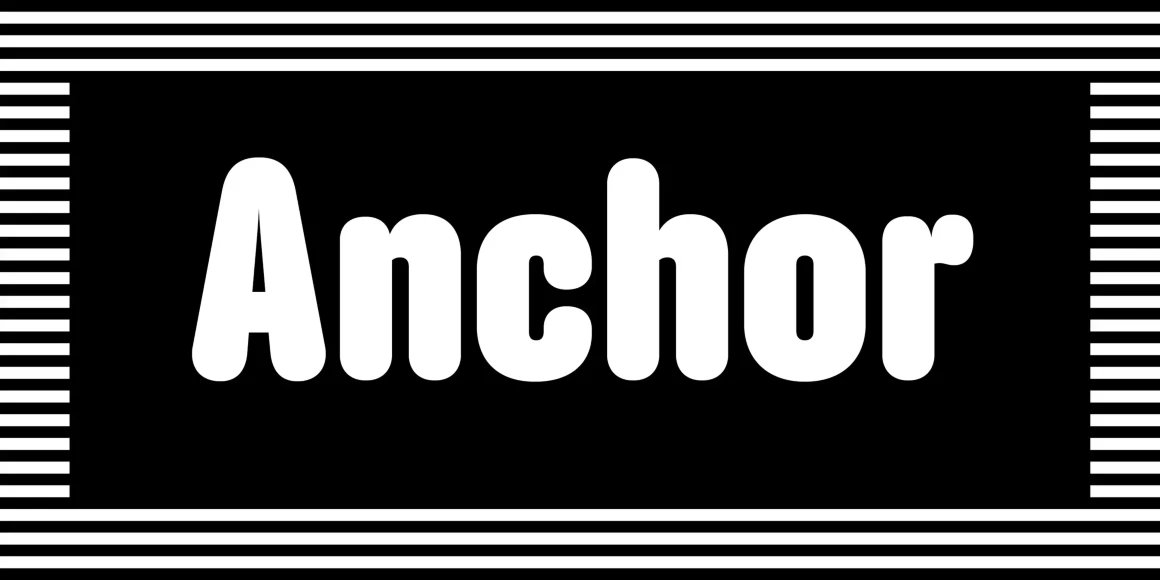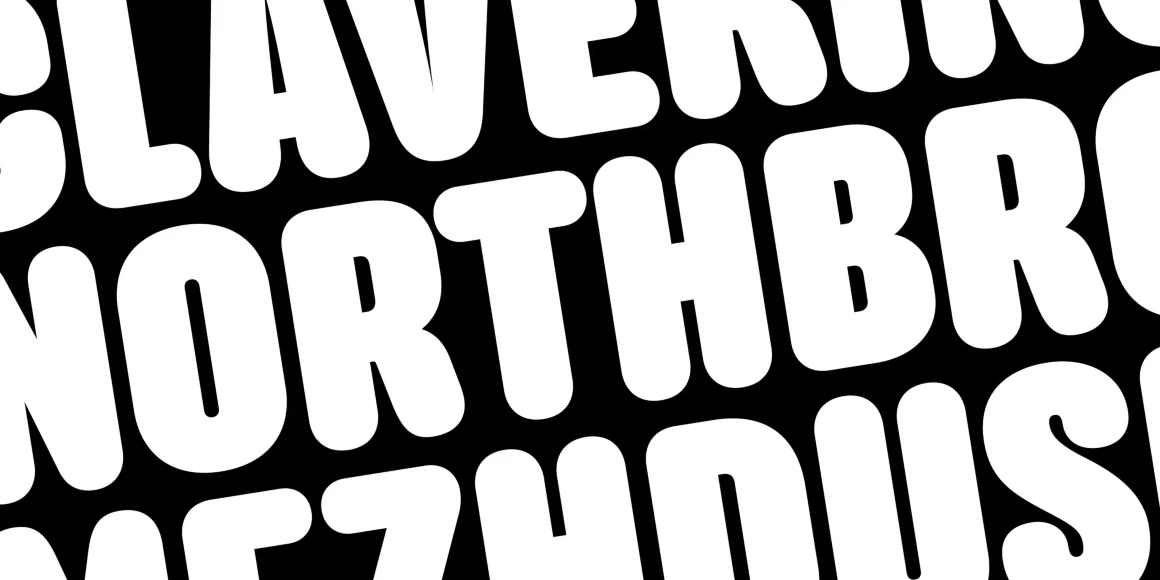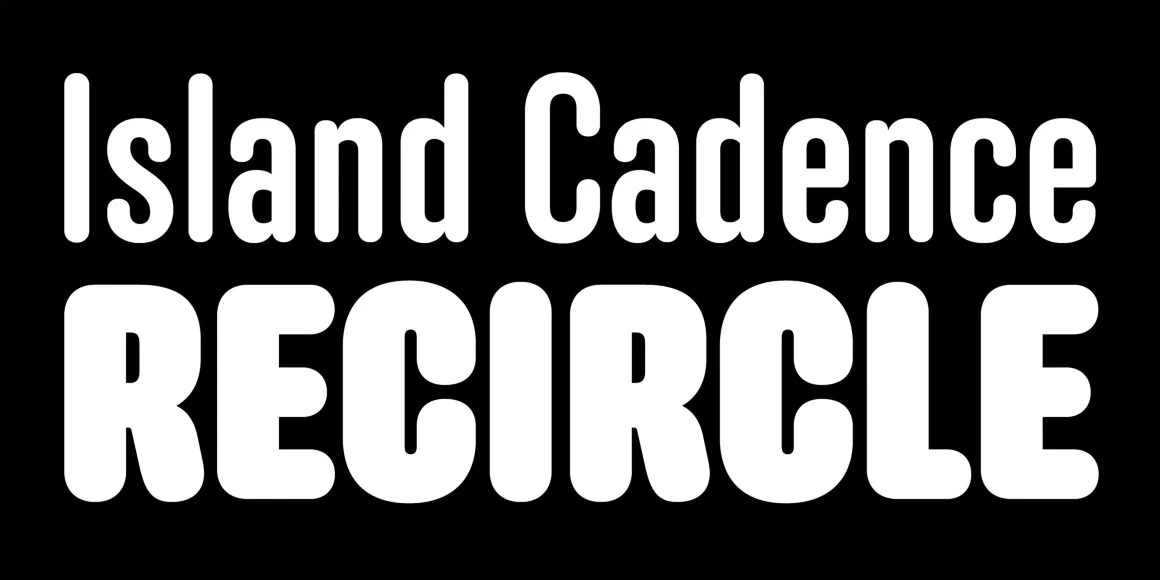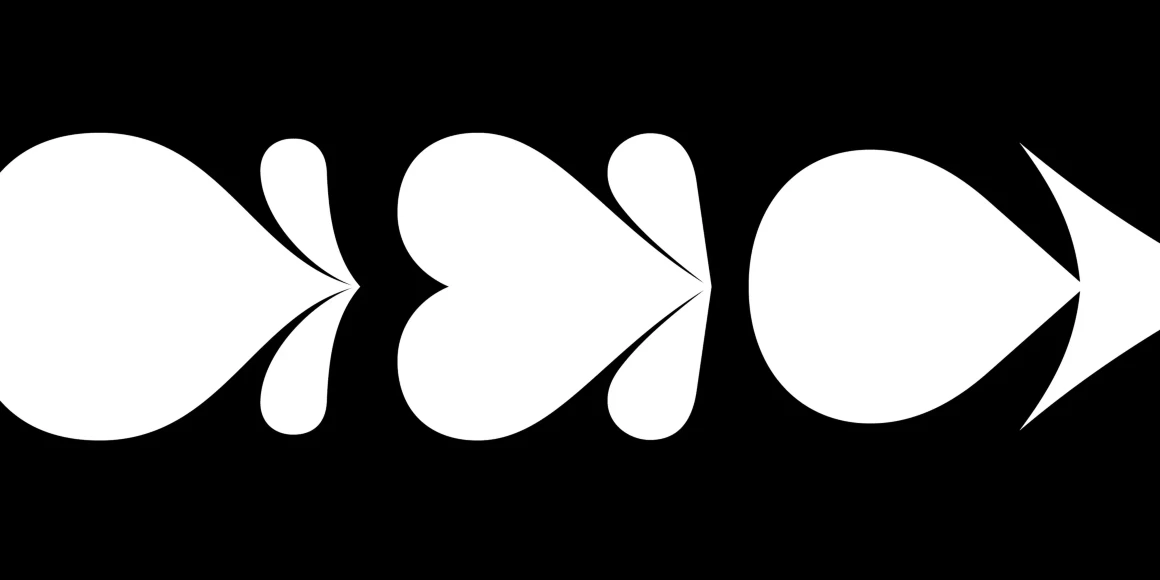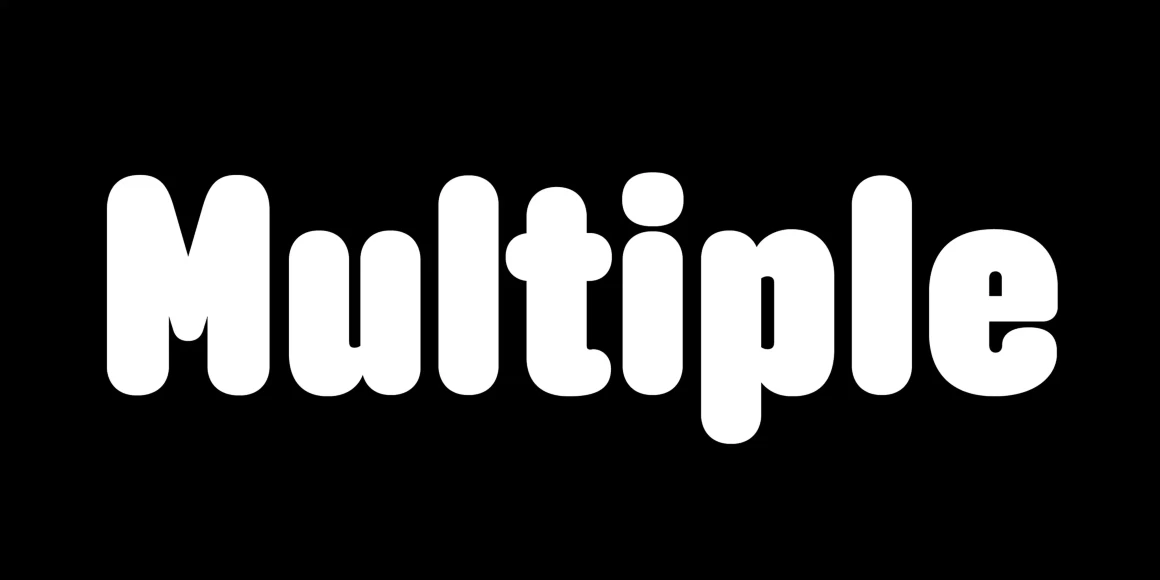
Anchor
From Process Type Foundry
Anchor is an informal family of round display gothics, with a serious side. Designed to maneuver in cramped quarters, the Medium and Semibold styles are straightforward, while the plump Bold and Black weights lend themselves to swagger and exaggeration. Designed to blend well with Bryant Compressed, the two typefaces are excellent companions. Anchor includes a set of playful arrows found as OpenType ornaments.
Designed by Eric Olson